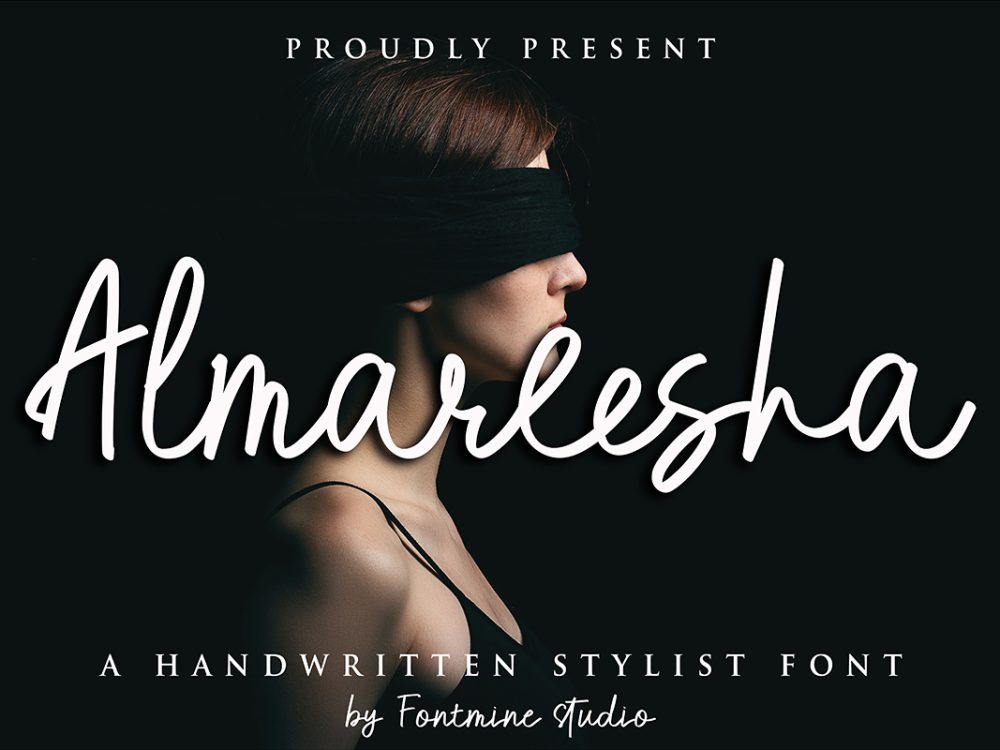
Almareesha Free Font
Meet Almareesha Free Font, an informal script font that strikes a balance between sophistication and elegance. It’s an ideal fit for photography, watermarks, social media posts, advertising, logos, branding, invitations, product designs, and beyond – adding a touch of perfection to every application. If you like it don’t forget to check out the full version.